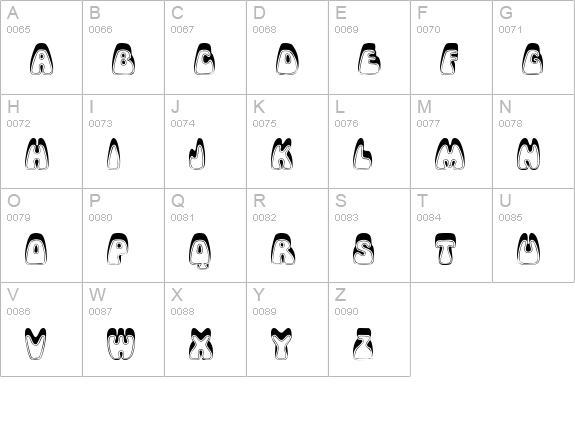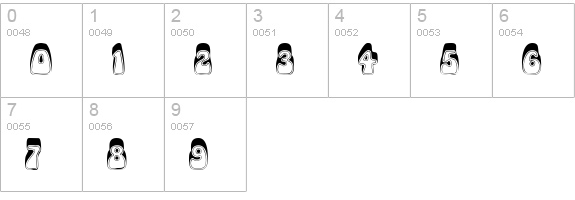
RobleRoundedSCapsSSK Font Details
RobleRoundedSCapsSSK font is a charming and versatile typeface that exudes a sense of modern elegance with a touch of playfulness. Its rounded edges and stylish caps make it perfect for a variety of design projects, from branding to invitations to social media graphics. The font's smooth and clean lines add a sophisticated yet approachable feel to any text. Best of all, RobleRoundedSCapsSSK font is available for free download at FontsMarket.com. Whether you're a designer looking to add a fresh new font to your collection or someone in need of a stylish typeface for a personal project, this font is sure to impress. Download it today and elevate your designs with the sleek and contemporary look of RobleRoundedSCapsSSK font.